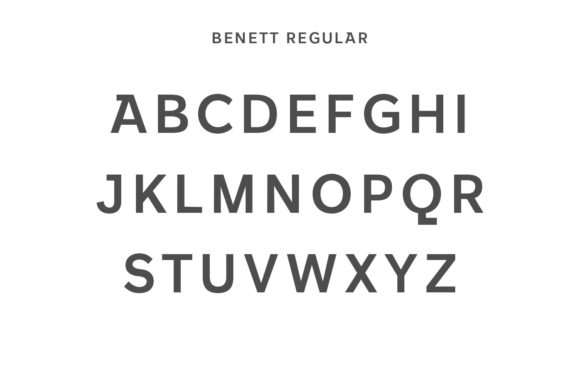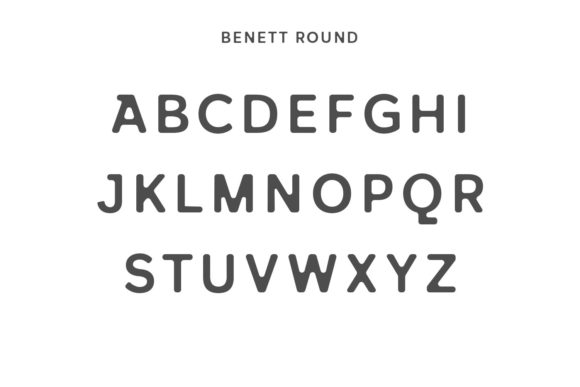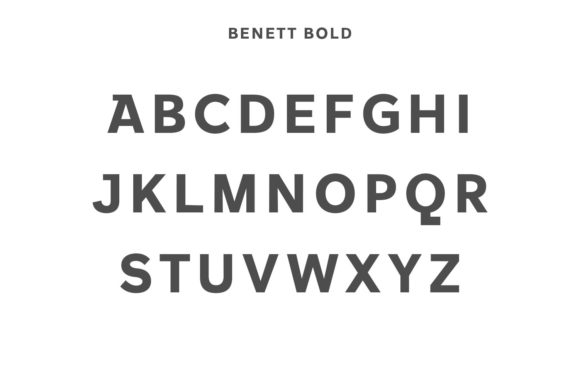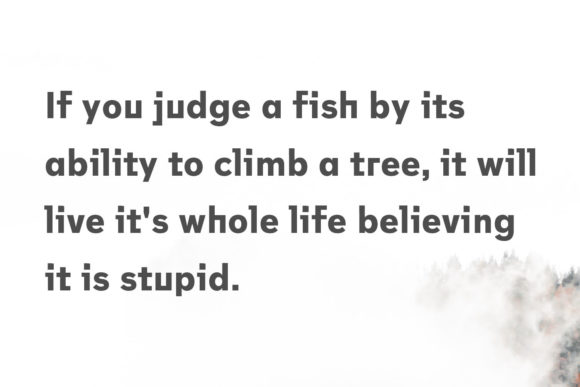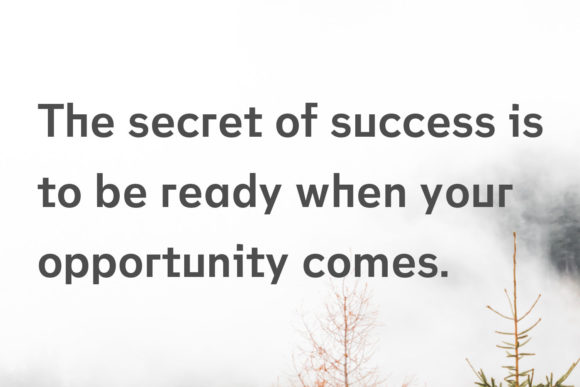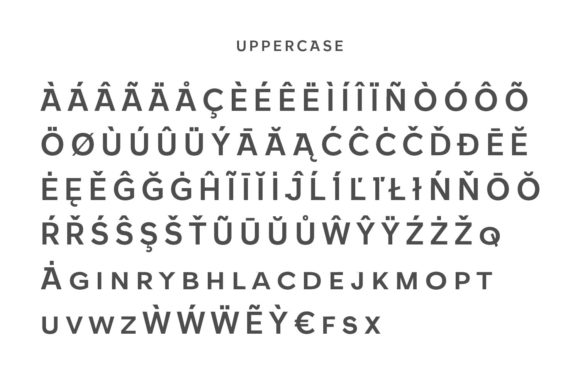
The Perfect Design Companion: Benett Family Font
Have you ever stared at a blank canvas, waiting for the perfect font to come to life? You know that feeling when everything clicks, and your design starts to take shape. It’s a moment of pure creativity, and it’s exactly what the Benett Family Font is designed to deliver.
This versatile sans serif font family offers a range of styles, from clean and regular to bold and round. With the Benett Family Font, you can create a variety of unique designs without needing to download multiple fonts. Whether you’re working on a packaging design, a presentation, or a logo, this font is the perfect companion to help you bring your ideas to life.
For designers, the Benett Family Font is a valuable asset that can elevate your work to the next level. Its flexibility and versatility make it an ideal choice for a wide range of projects, from web layouts to advertising campaigns.
Bennett Family Font Key Features
- Unique Characteristics: The Bennett Family Font features a unique blend of modern and classic elements, with elegant lines, refined details, and a sophisticated feel.
- Script and Language Support: The font includes support for Latin, Cyrillic, and Greek scripts, as well as a wide range of languages, including English, Spanish, French, and more.
- Font Style Variations: Bennett Family Font offers 6 font styles: Regular, Italic, Bold, Bold Italic, Script, and Script Italic, providing versatility for various design applications.
- Kerning and Ligatures: The font includes advanced kerning and ligature features, ensuring smooth and natural-looking text rendering.
Benett Family Font Review
As a designer, I was excited to dive into the Benett Family Font. ✨ One of the things that stands out is its versatility – it works well in both digital and print applications. The font is a great choice for headings and titles, with a clear and legible design that’s easy on the eyes. ✨ The bold weights are particularly effective for making a statement, and the script styles add a touch of elegance to any design.
However, there are some limitations to consider ⚠️. The font may not be the best choice for body text, as it can feel a bit too ornate for large blocks of text. Additionally, the font’s compatibility with certain operating systems and software may be limited, which could cause issues in certain design environments.
Overall, I’d say the Benett Family Font is a solid choice for designers who need a high-end, sophisticated look. While it may not be perfect for every project, it’s definitely worth considering for applications where a touch of luxury is needed.
Tips for Getting the Most Out of Benett Family Font
Use the Benett Family Font for titles and headings to add a touch of elegance to your designs.
Experiment with different font sizes and colors to create a unique look.
Combine the Benett Family Font with other fonts to create a visually appealing contrast.